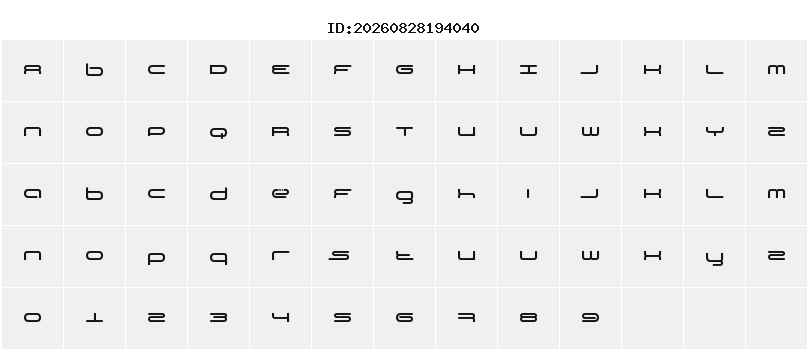
Tiësto By Simón Barja Caride Preview
About Tiësto By Simón Barja Caride.ttf
Tiësto By Simón Barja Caride.ttf is a modern, elegant sans-serif font designed for ultimate readability and visual harmony. Perfect for branding, headlines, web design, and print materials.